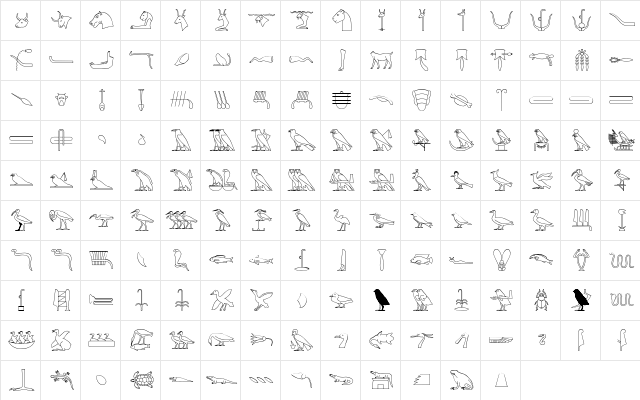
GlyphBasic B
Design Context for GlyphBasic Typeface
GlyphBasic is a composed and adaptable typeface that performs quietly and consistently across a wide range of design contexts.